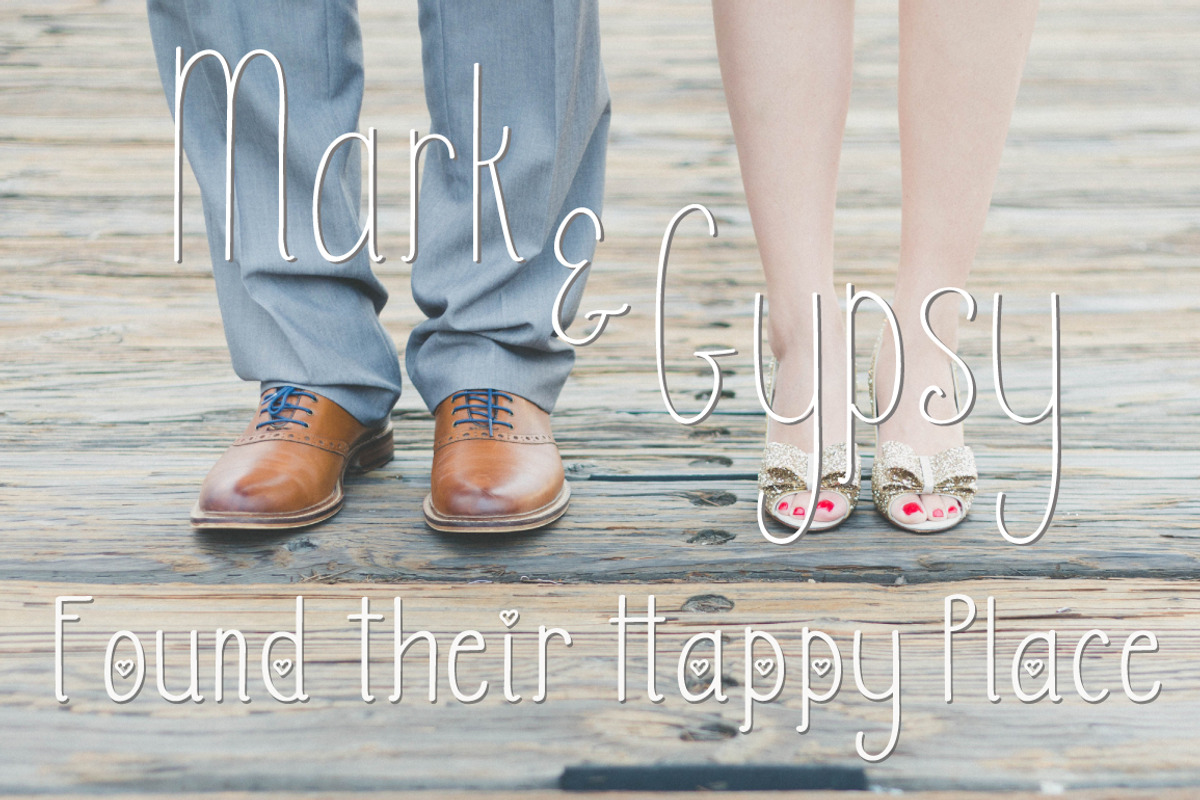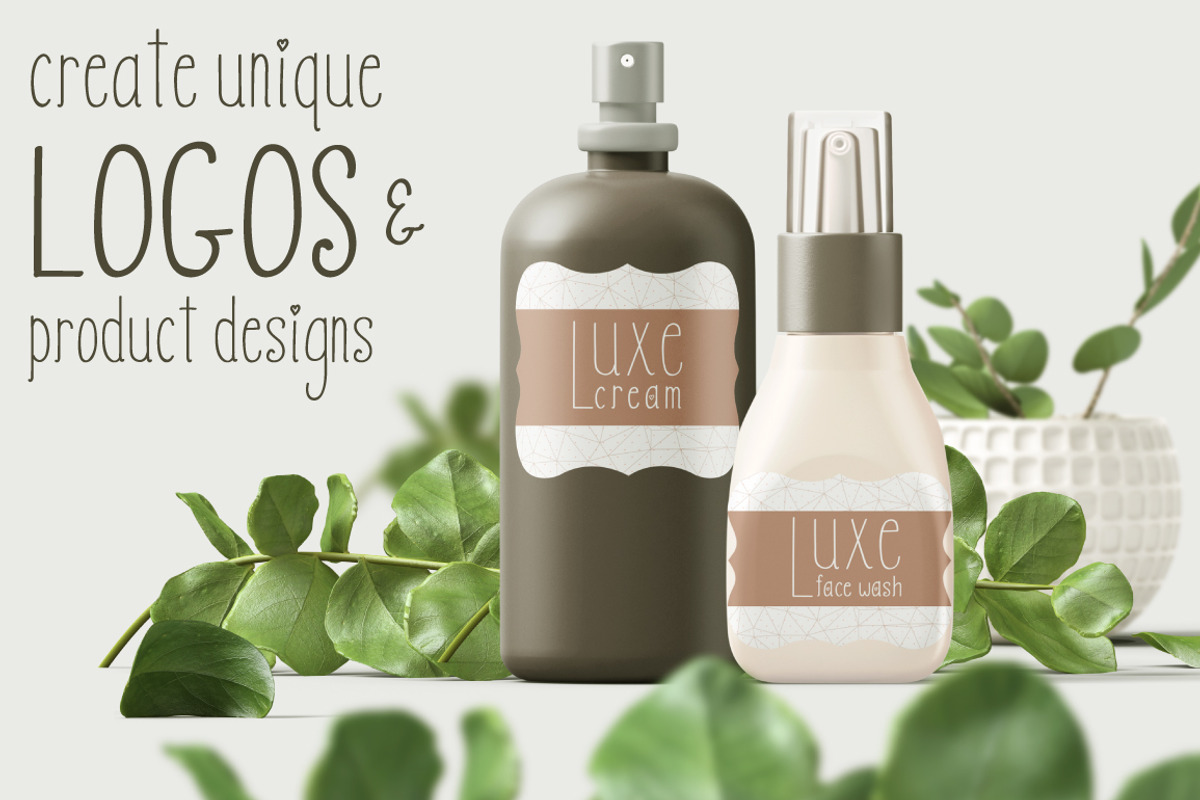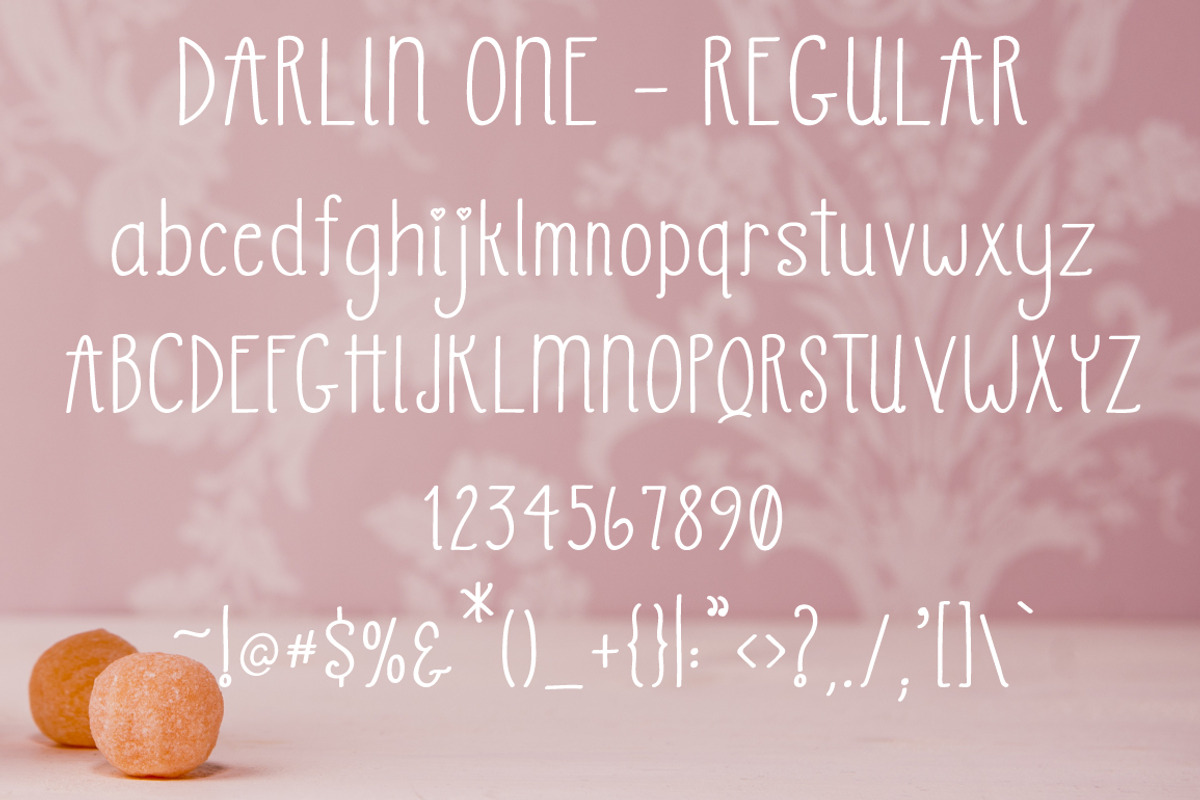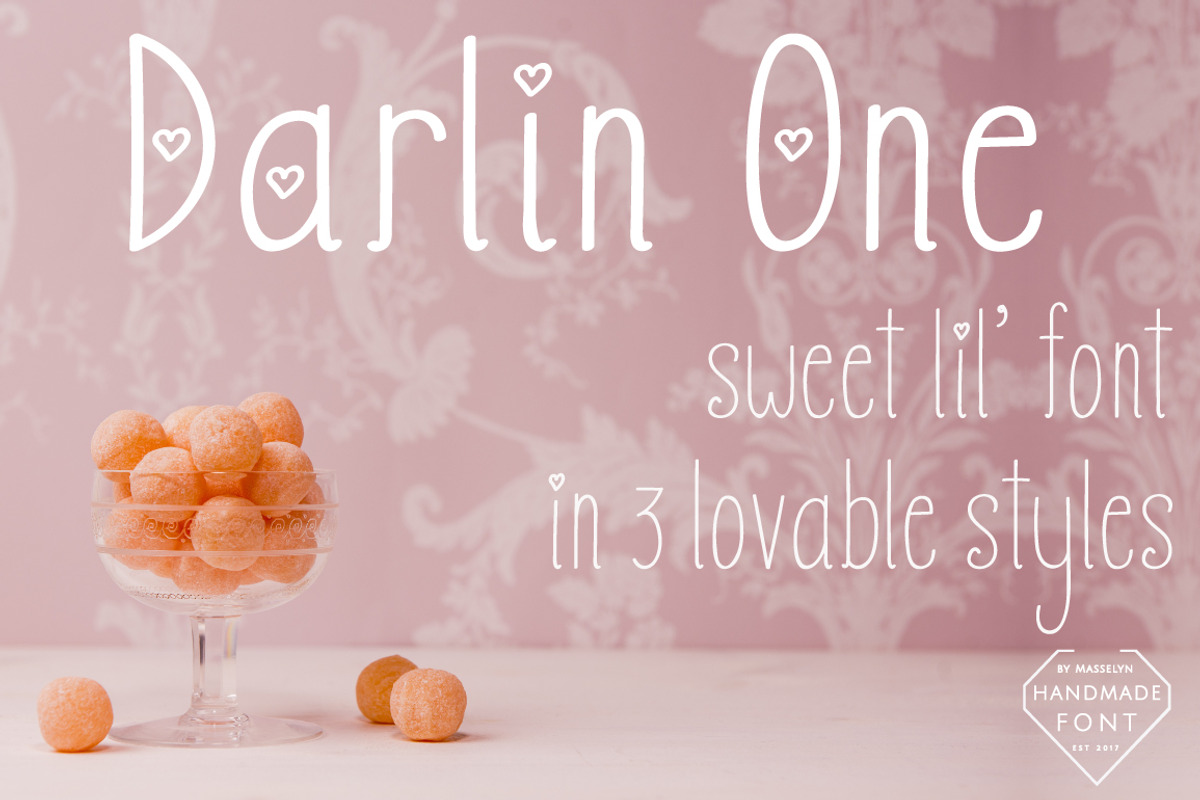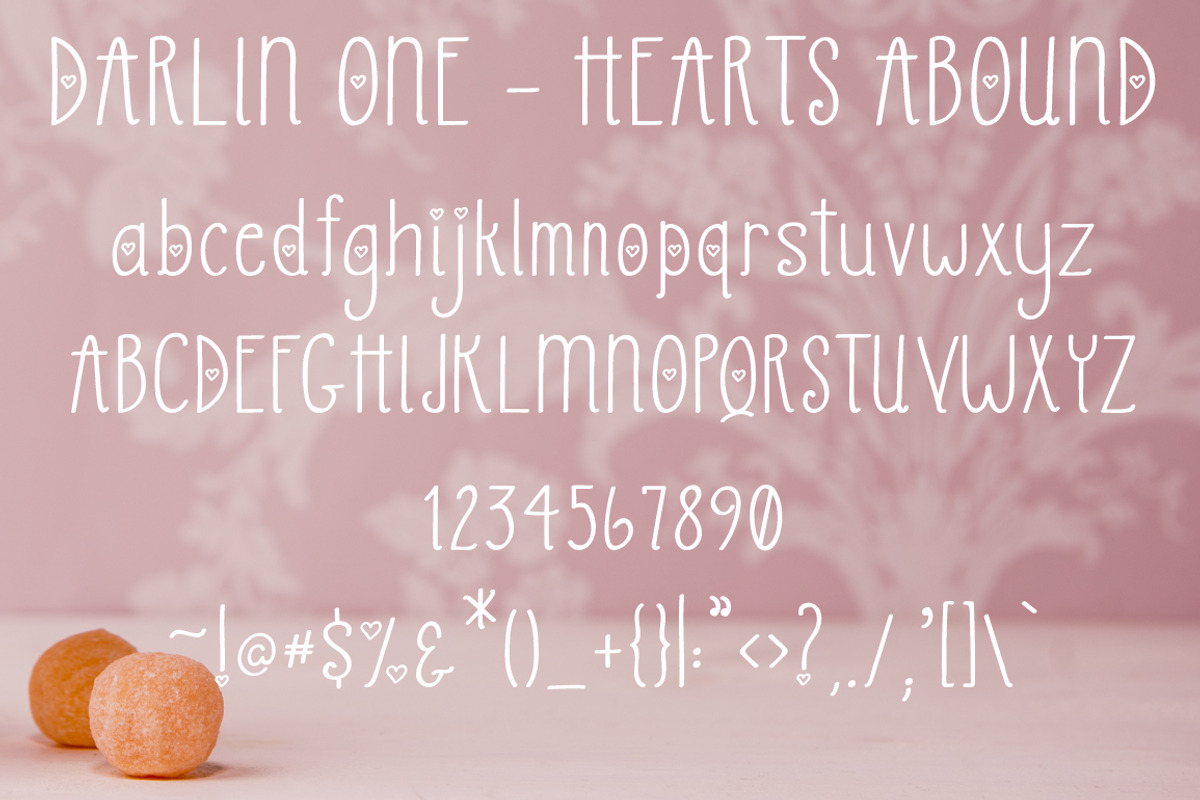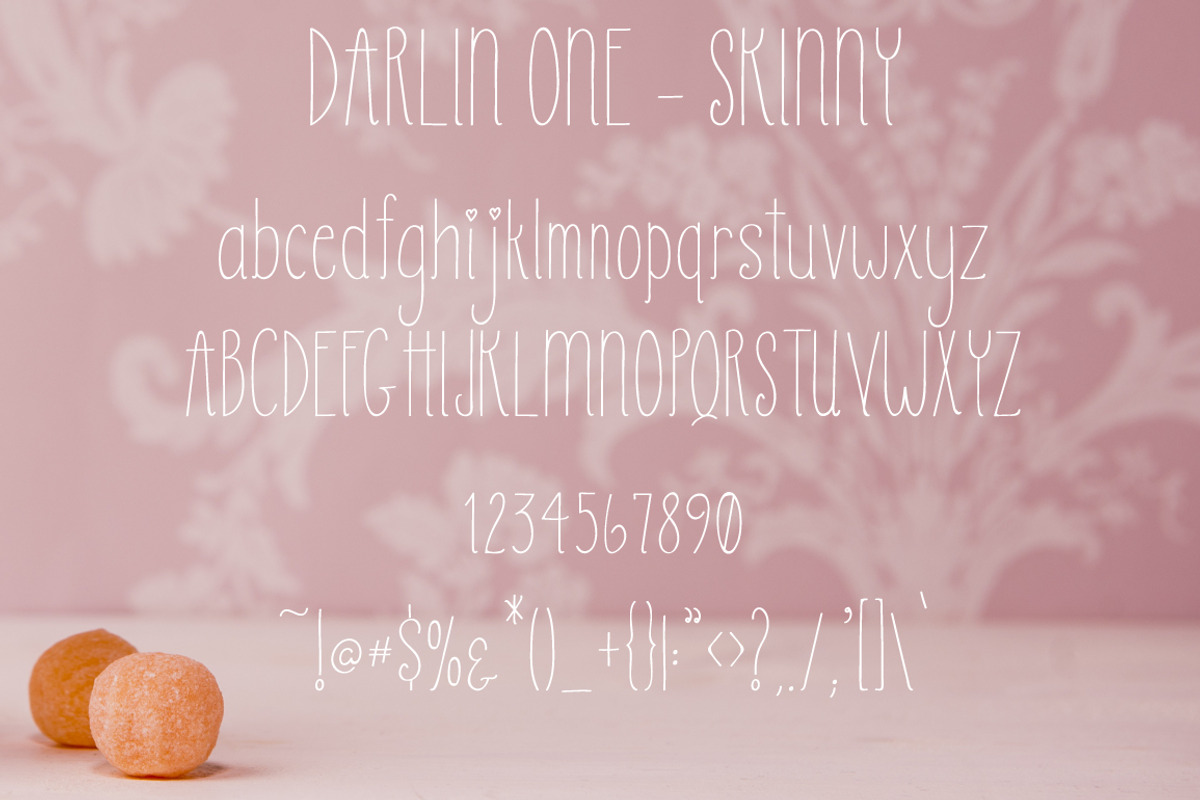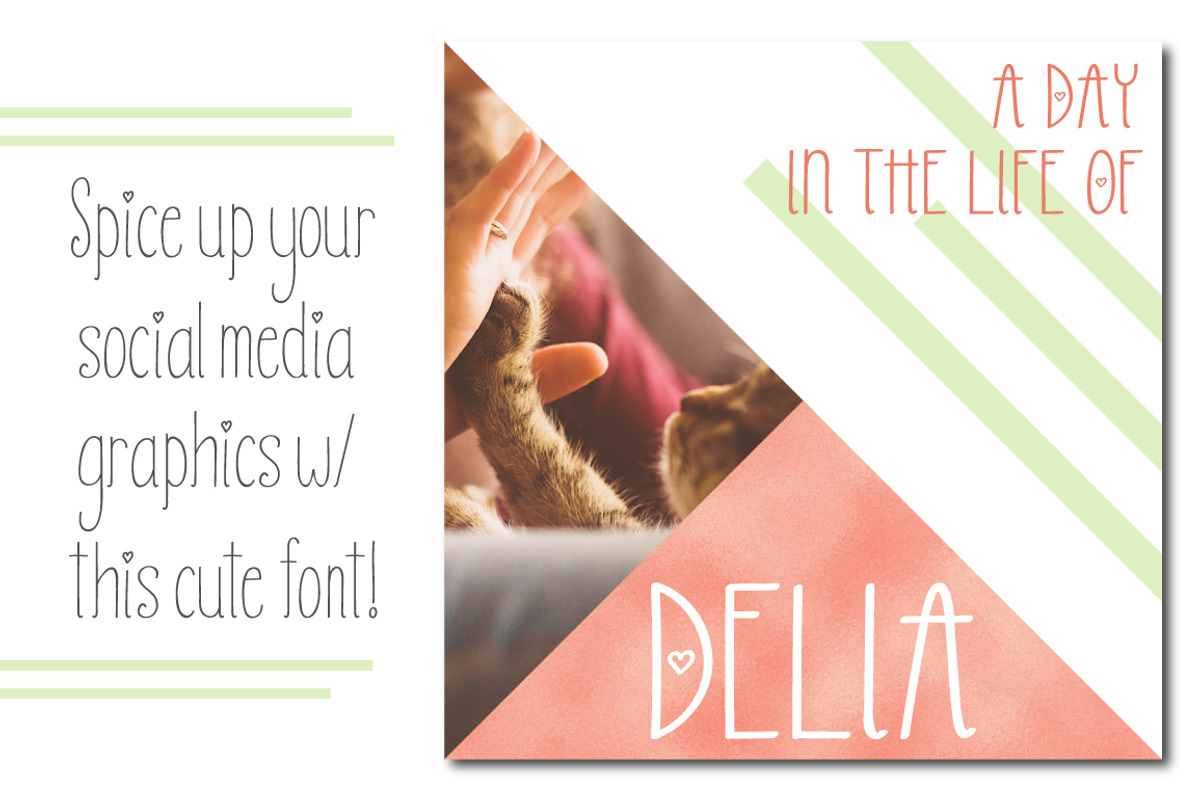
Darlin One // Sweet Font Trio
Such a super sweet lil' font, with loads of character and love. I started out creating this as a simple font with just a few hearts - here & there - but then I went WILD and added a second style where hearts float all over the place. So cute!!!
This font is super easy to read and looks great in cute, modern and vintage styled designs. Logos, product packaging, Instagram & Pinterest designs and more.
- Darlin One (just a few hearts)
- Darlin One - Hearts Abound (just like its name, hearts are all over the place)
- Darlin One - Skinny (same as regular, but tall and skinny like a really good latte)